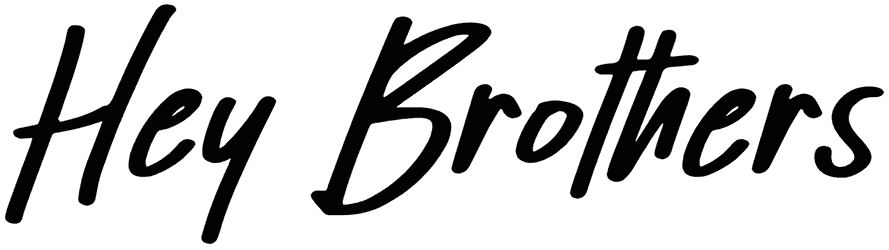
Hey Brothers Font
Today’s script font has a street design and gives off a youthful vibe and just radiates happiness! Hey Brother has a marker effect and handwritten illusion character design that brings a casual makeover to your words.
You can use it to write gaming titles, movie and book names, summer flyers, product introductions, and graffiti. There is a noticeable size difference between its capital and lowercase letters.
Designed by: Fontherapy